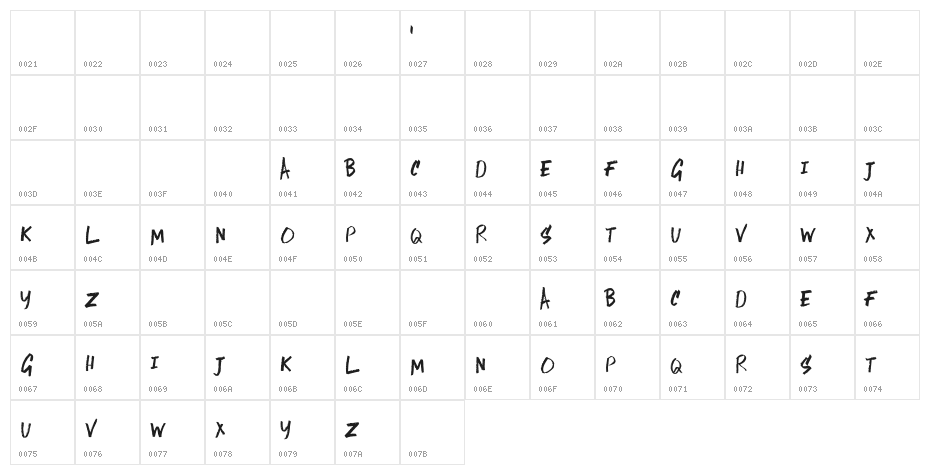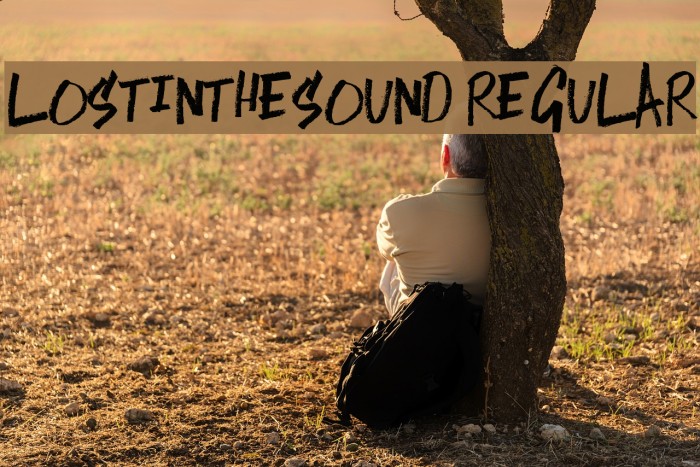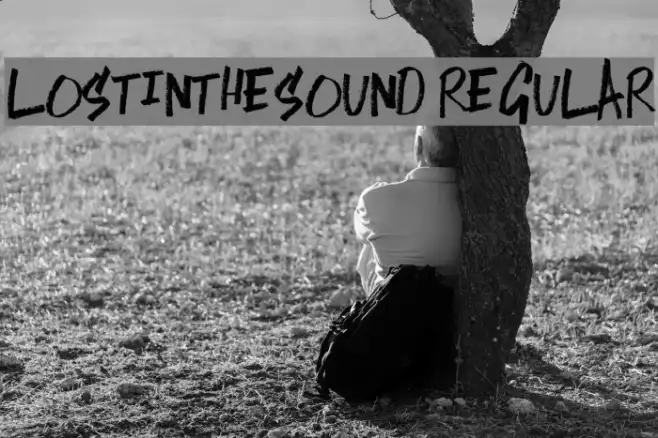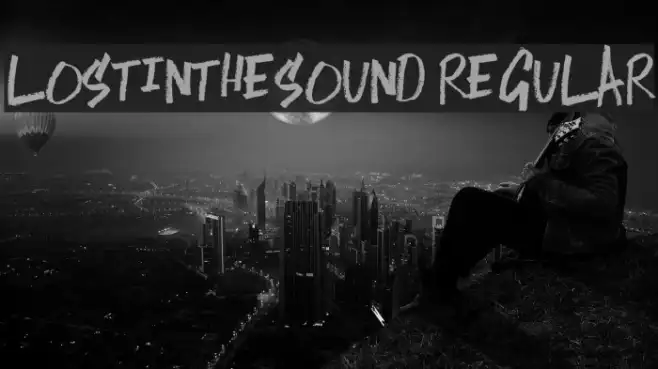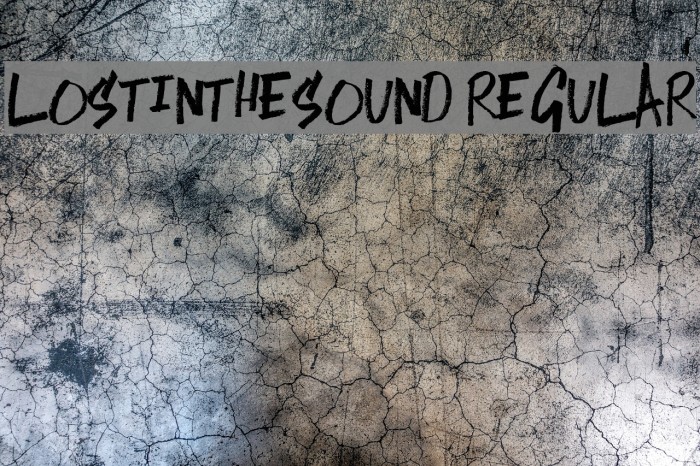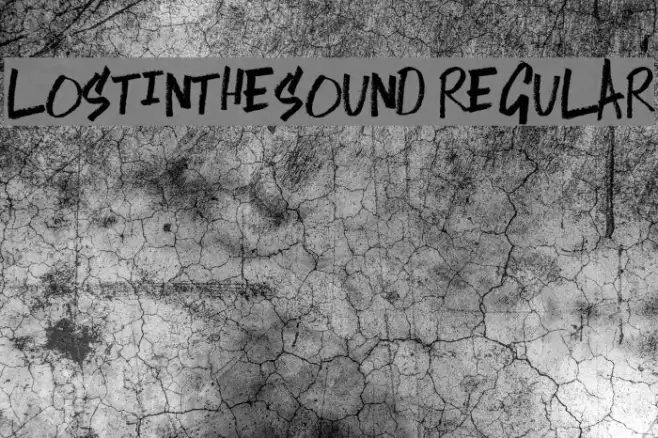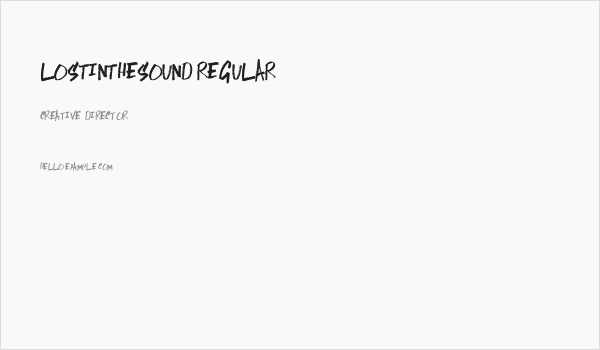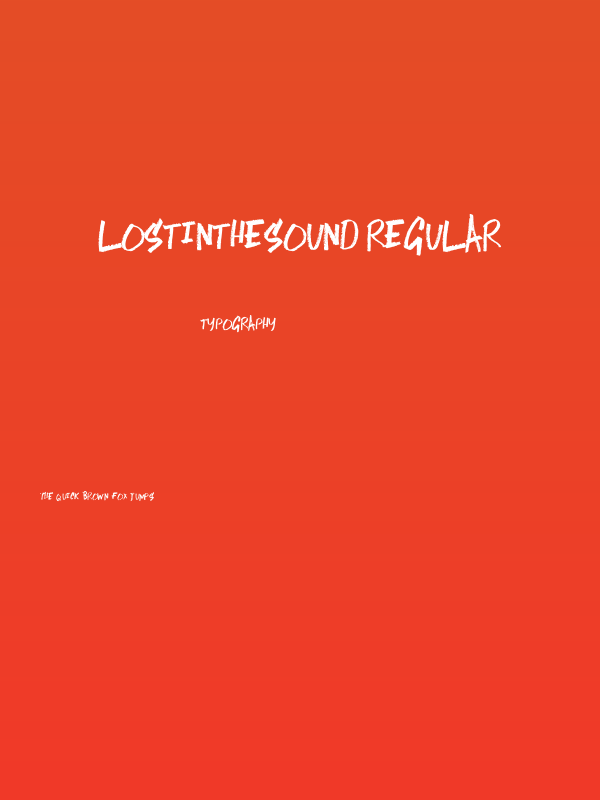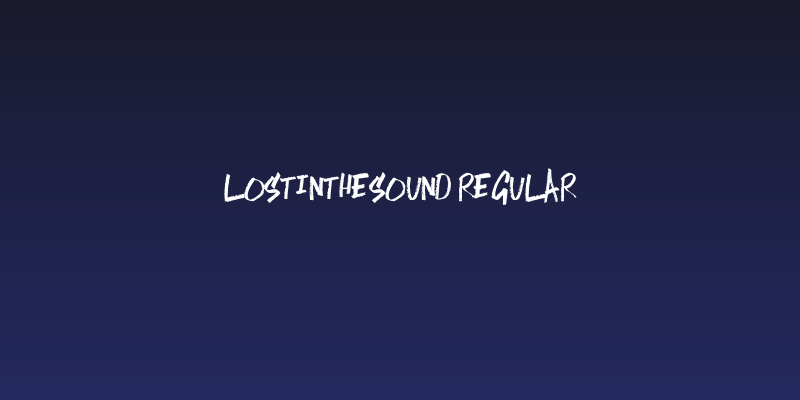
LostintheSound-Regular Font
LostintheSound-Regular Description
This font features a bold, hand-drawn style with a textured, brush-like appearance. The letters are slightly irregular, giving it a dynamic and energetic feel. The uppercase and lowercase characters maintain a consistent style, with a playful yet edgy look. The font includes a full set of uppercase and lowercase letters, numbers, and a selection of special characters. Its rough edges and uneven strokes add a sense of movement and spontaneity, making it ideal for projects that require a personal, artistic touch.
| Proposed Projects | Ideal for posters, album covers, branding, and creative projects that need a personal, artistic touch. |